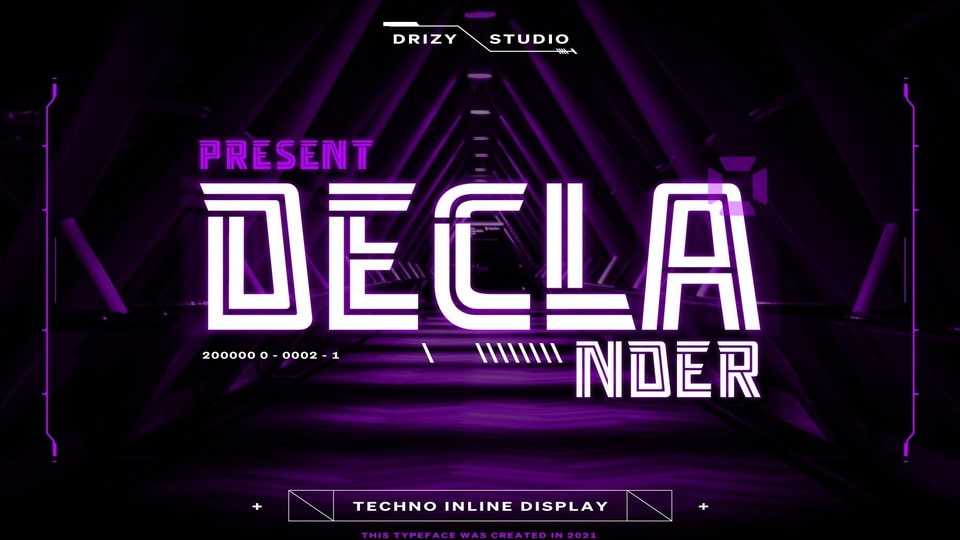
Download Declander font, a sci-fi inspired display inline typeface. Declander is suitable for futuristic, robotic, sci-fi theme of your projects.
Designer: Drizy Studio